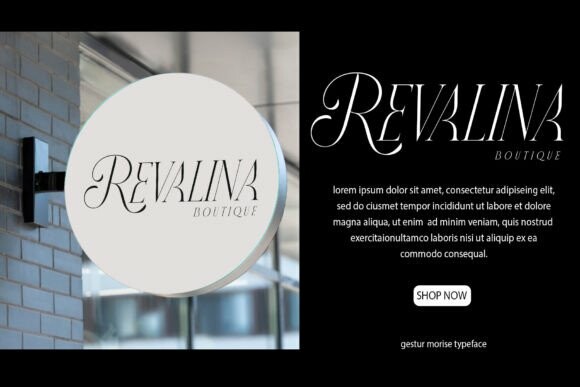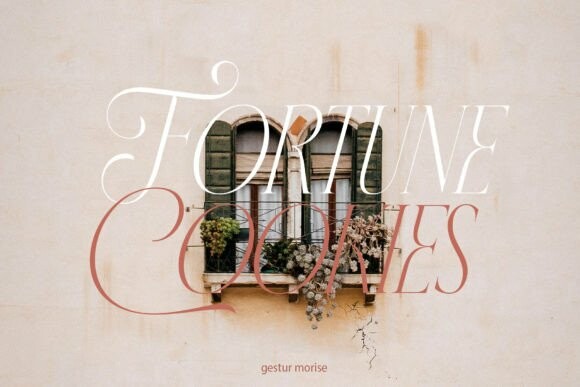
Gesture Morise Font
Gesture Morise Font is a fancy font with a lot of ties to it with great detail. This font is perfect for your work to make it look elegant and luxurious.